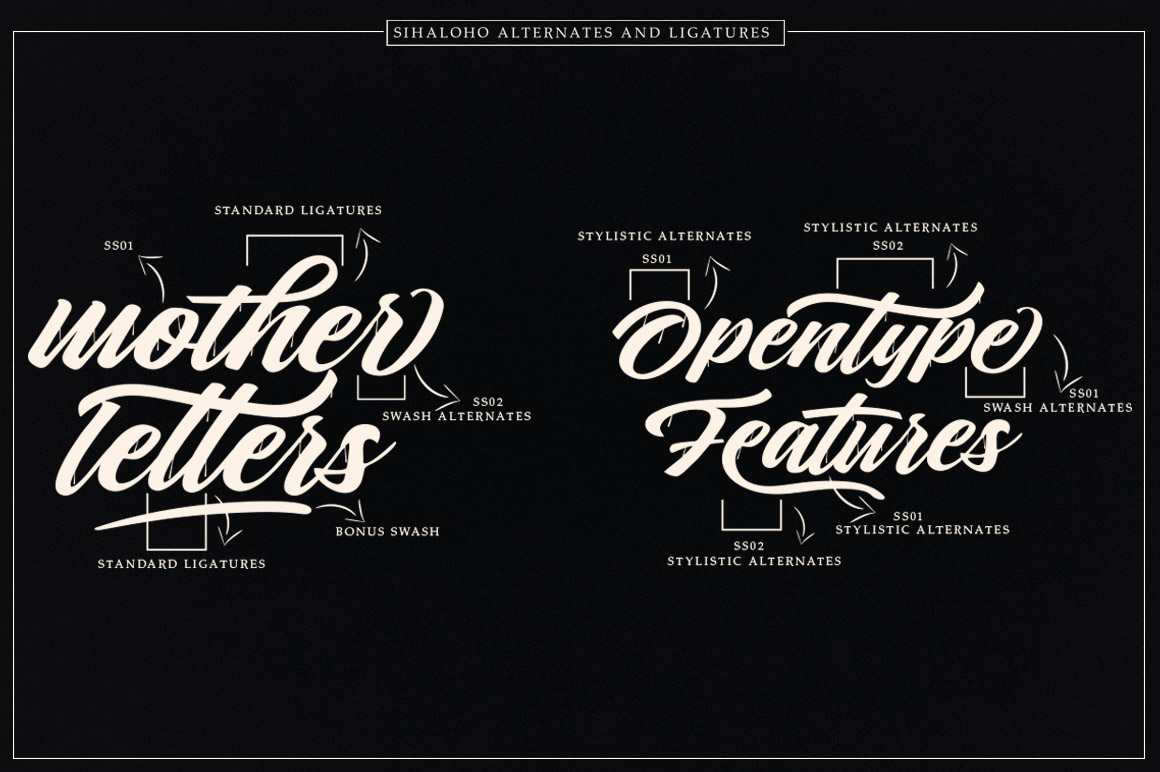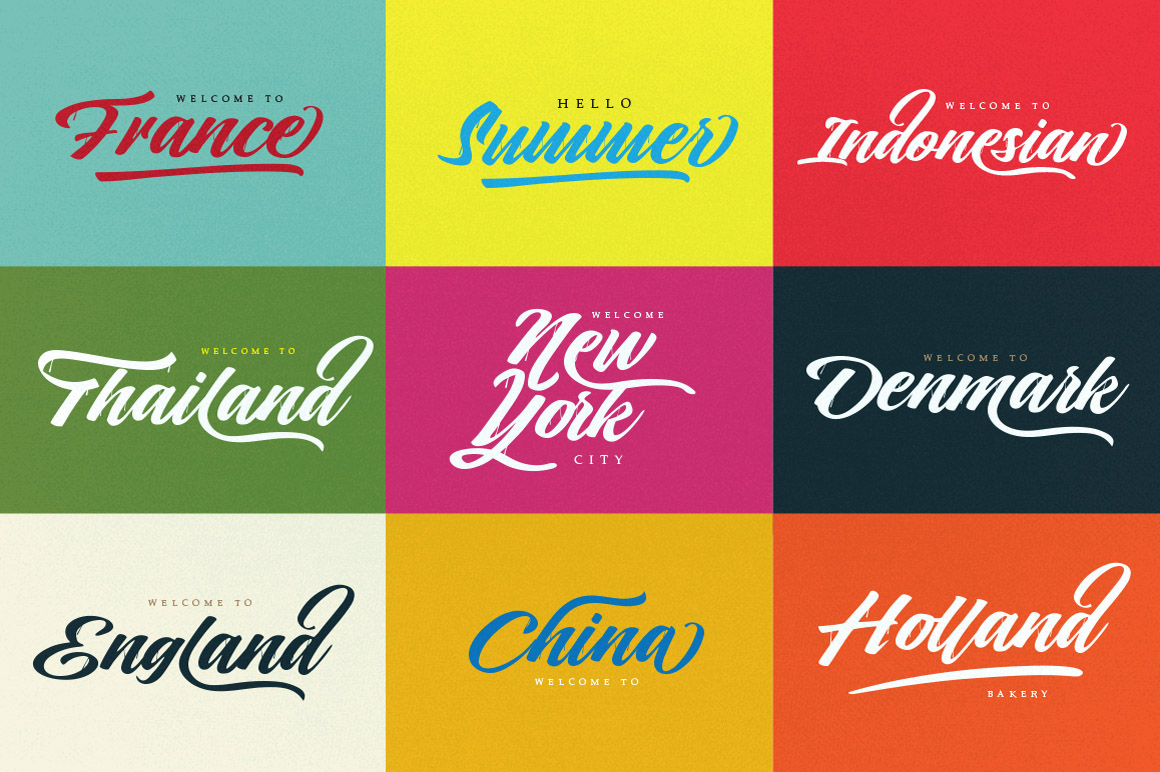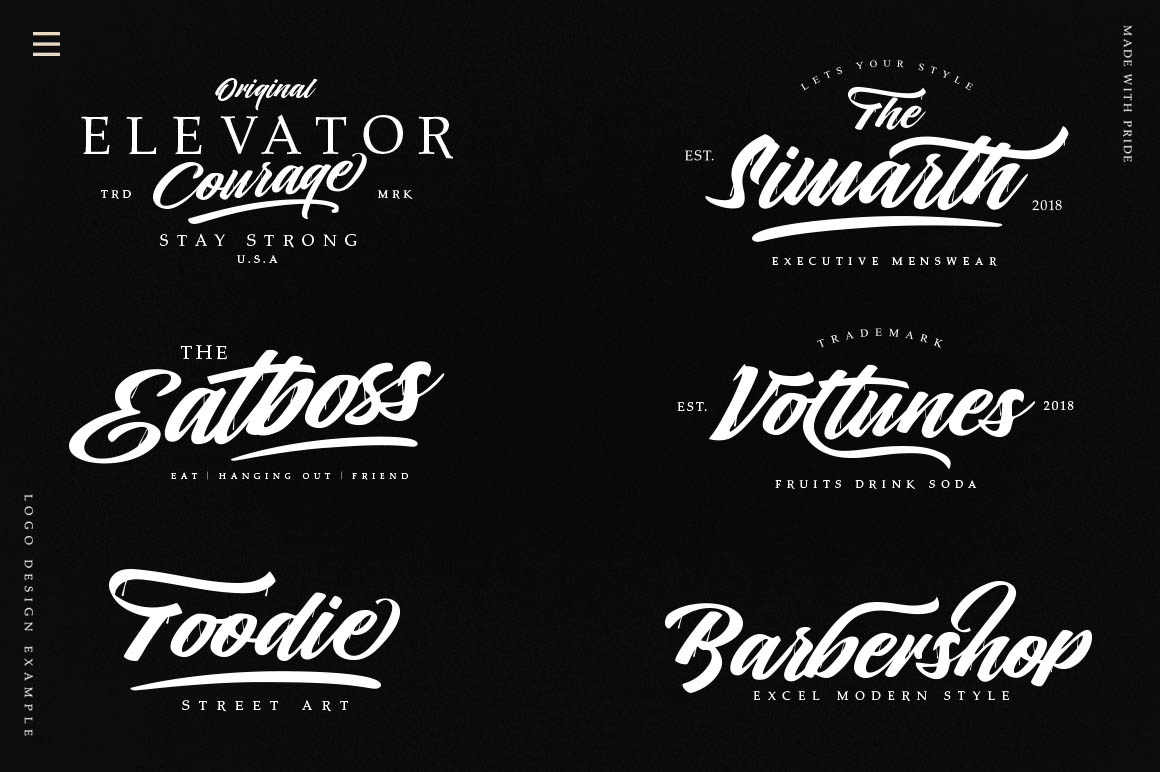
Introduction to Sihaloho Font
Sihaloho is a gorgeous font duo, perfect for use in a wide range of project types.
These fonts, script and serif, are bold and clean, and offer tons of variety and taste This download comes with extras.
Key Features of Sihaloho Font
Why Choose Sihaloho Font?
Sihaloho Font offers exceptional quality and versatility, making it a valuable addition to your design toolkit. Whether you’re creating for personal projects or commercial use, Sihaloho Font delivers professional results.